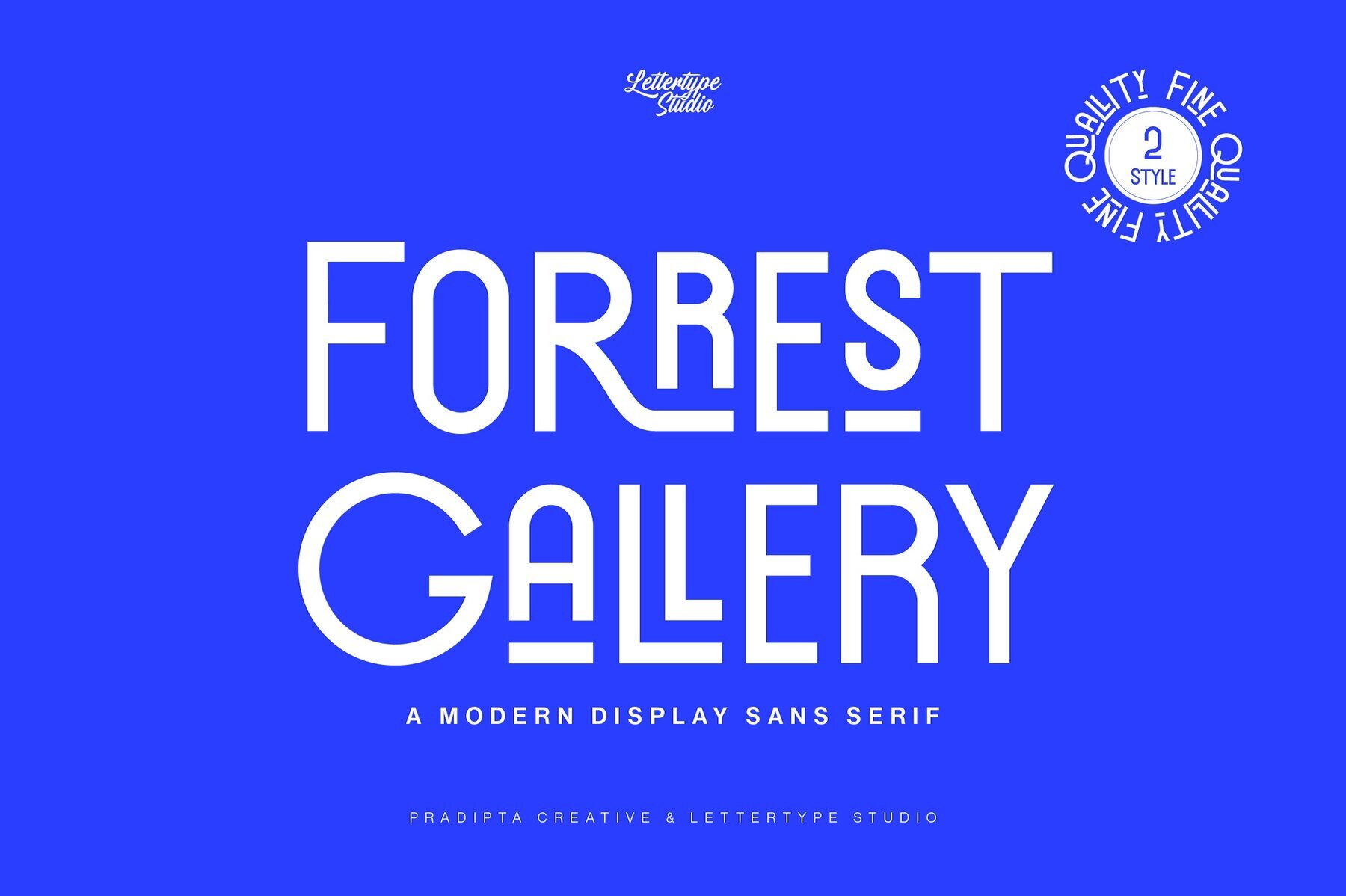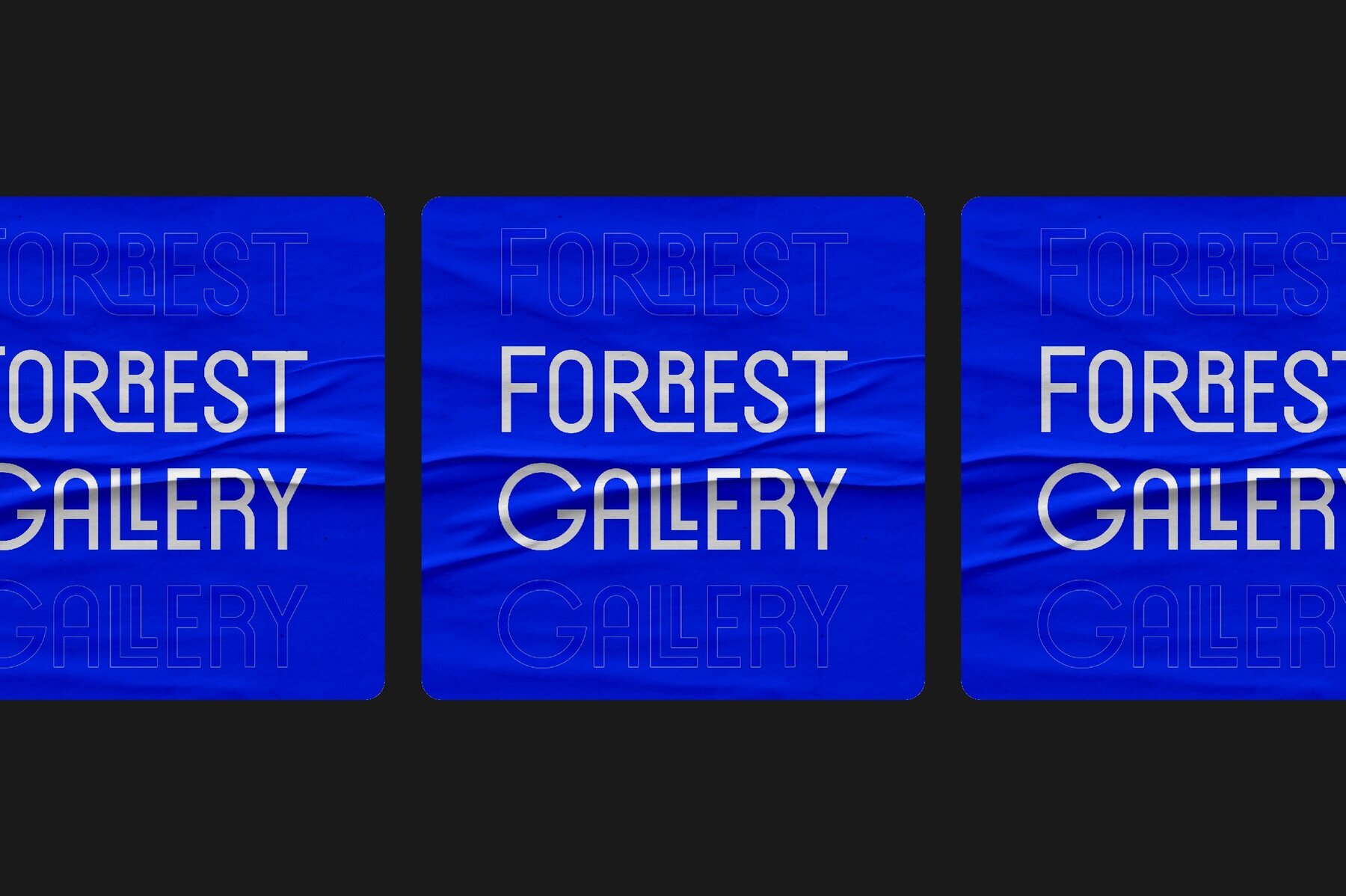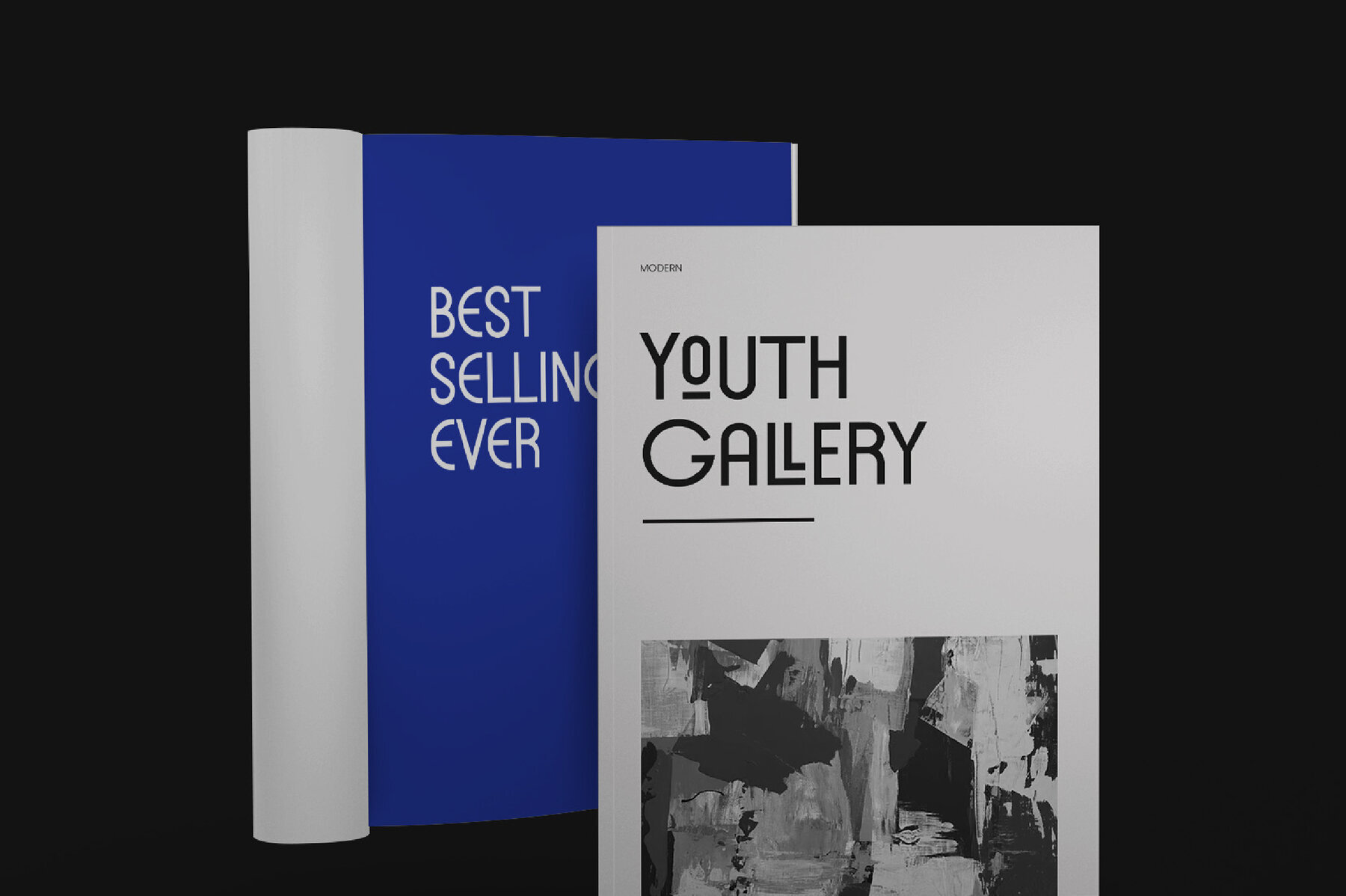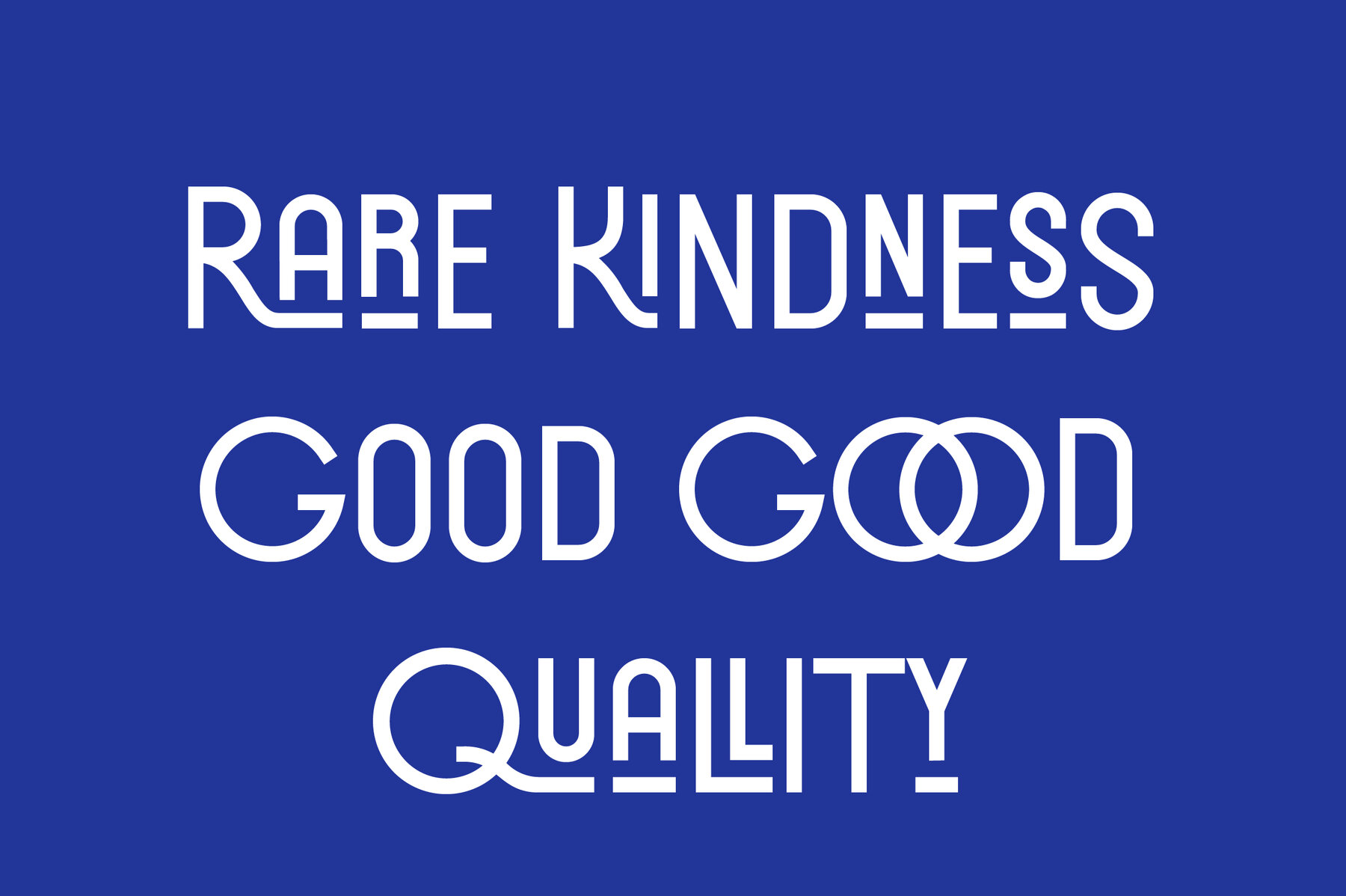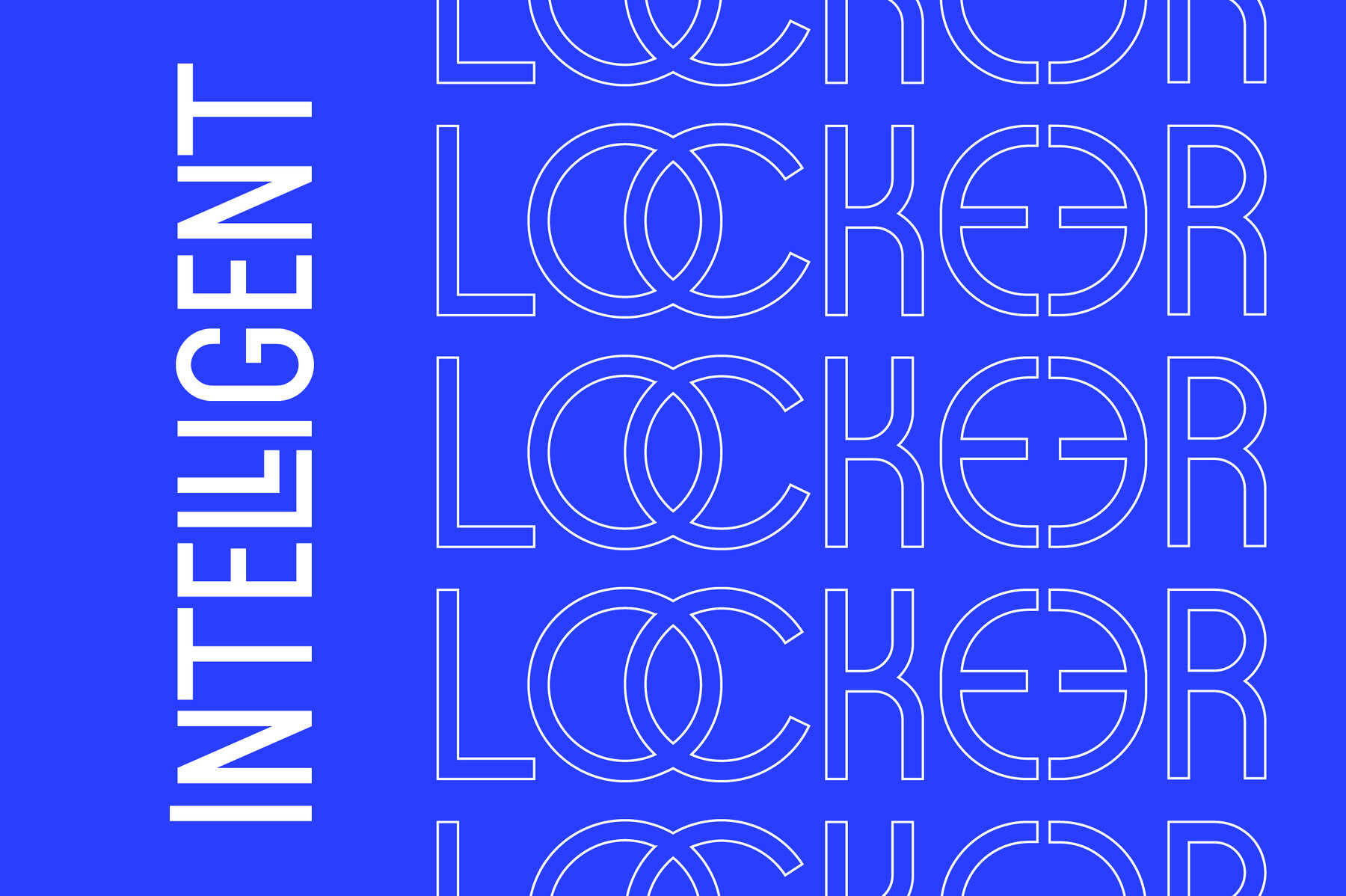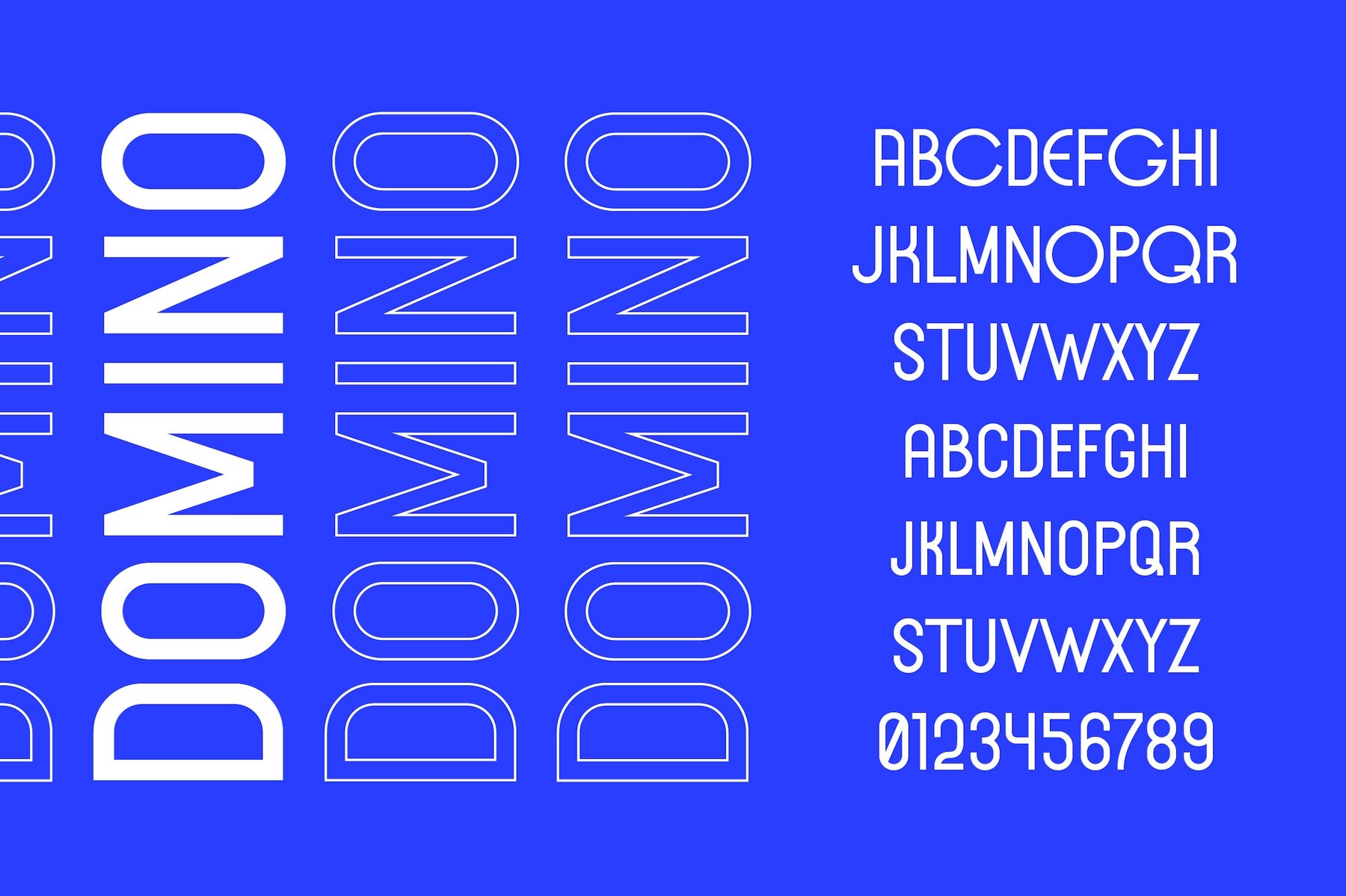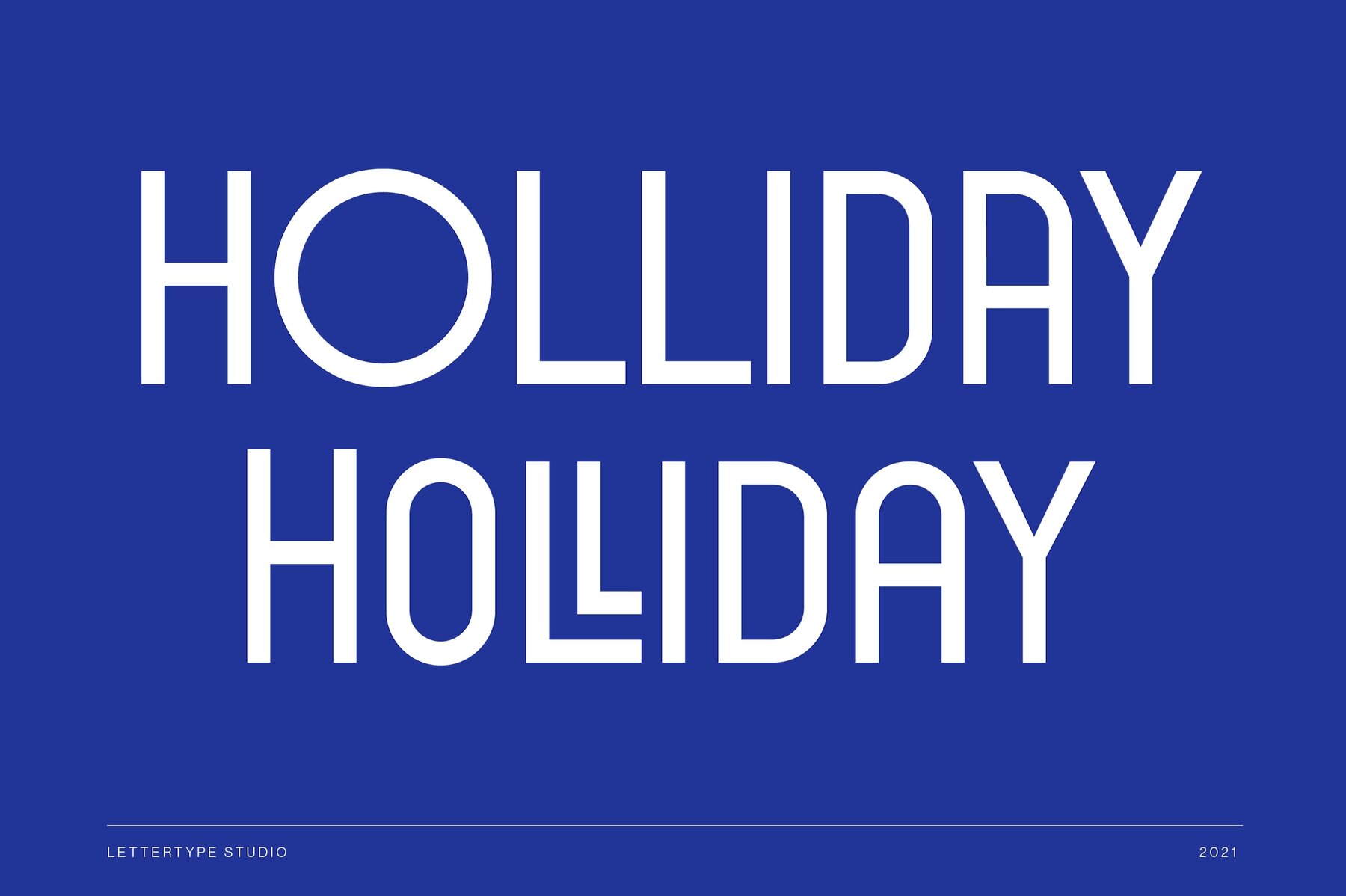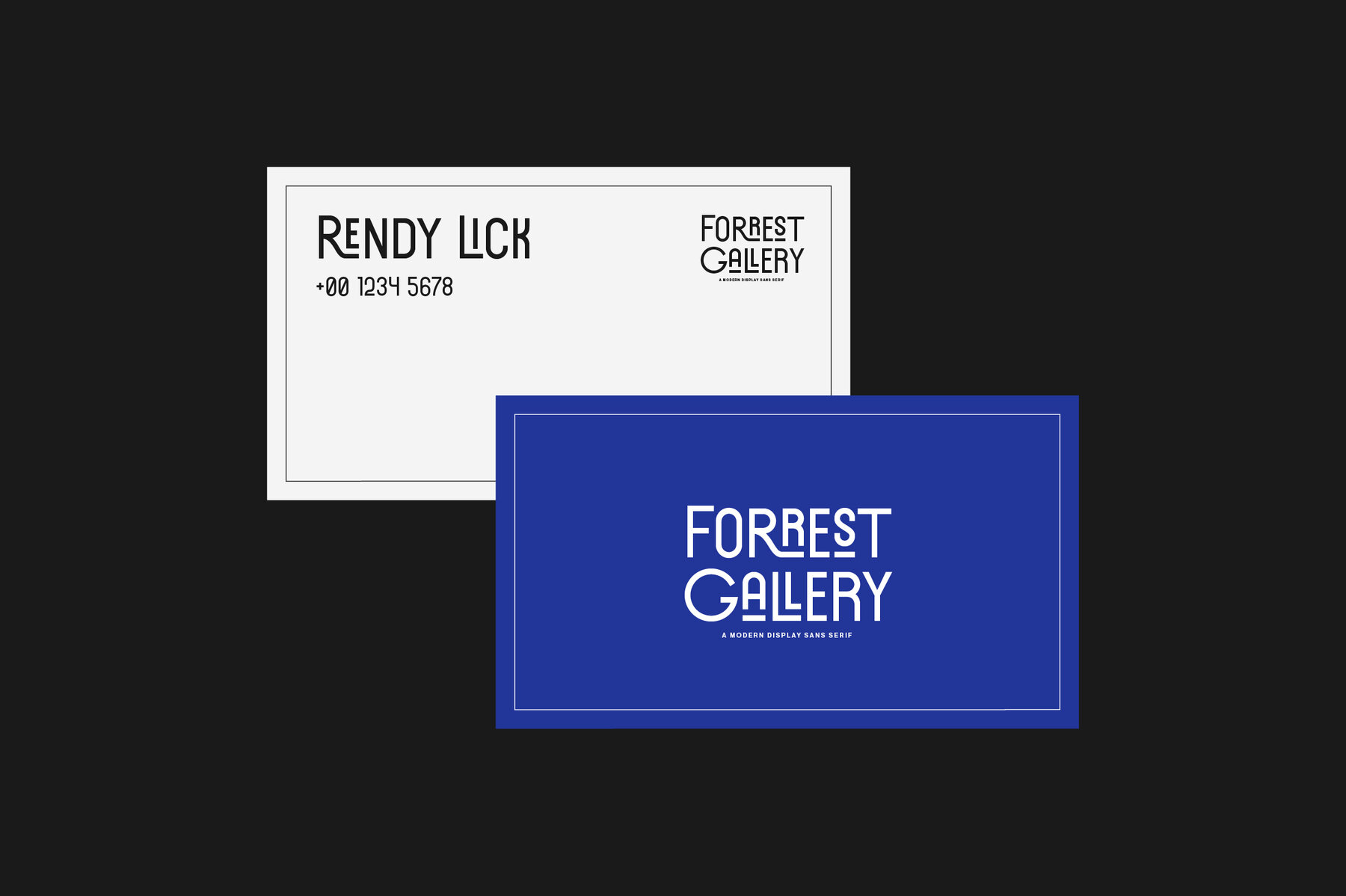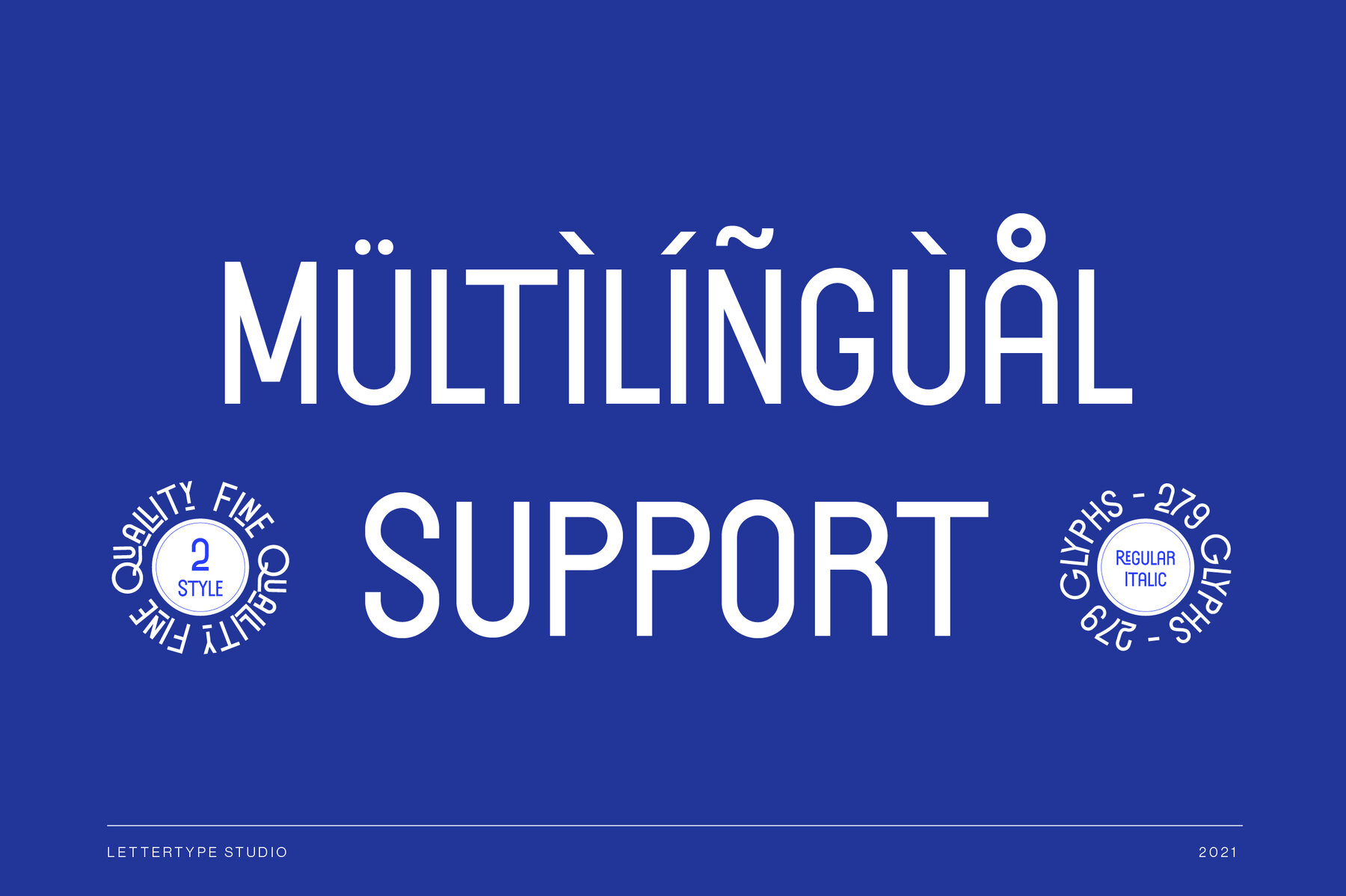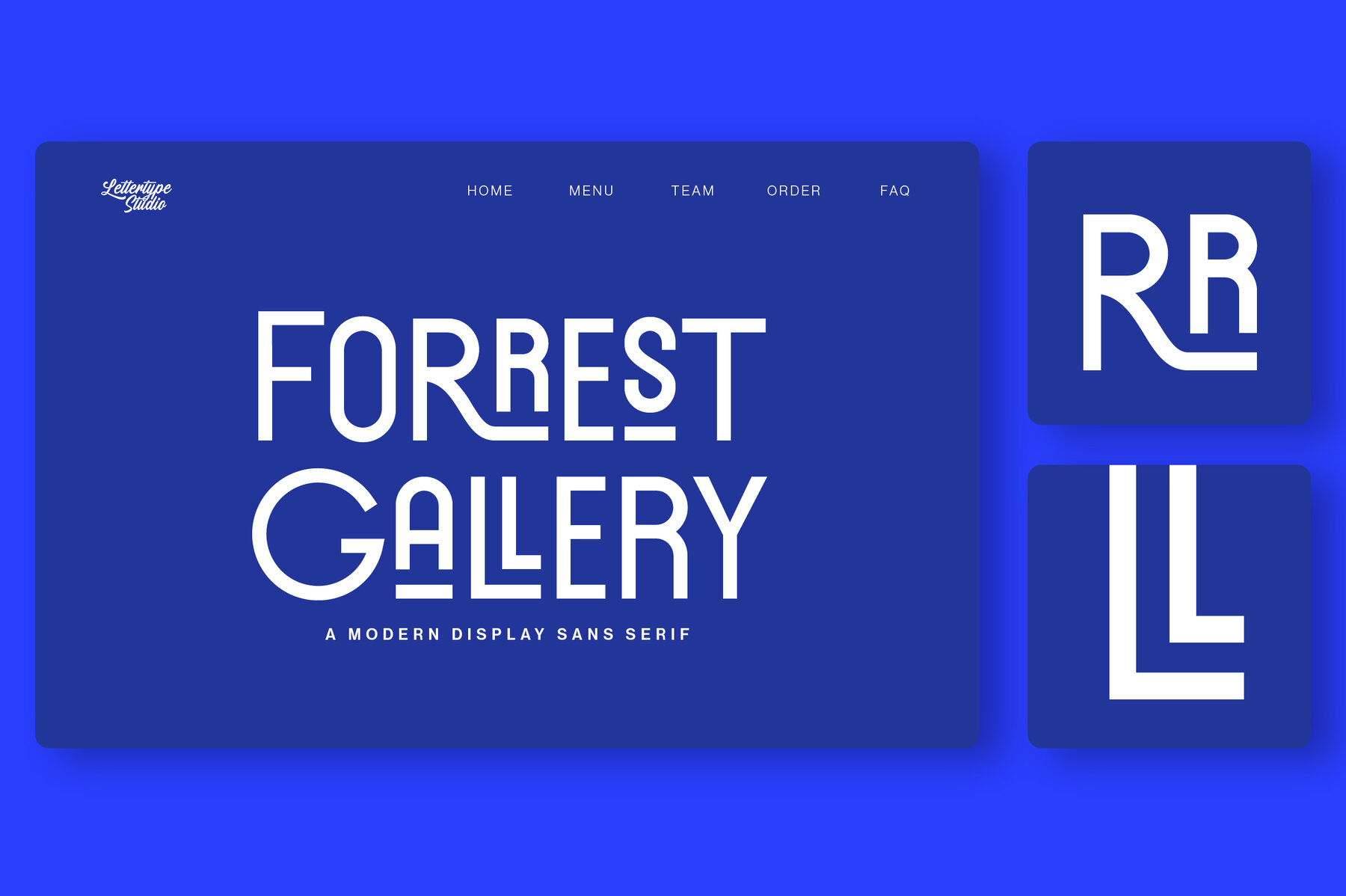
Forrest Gallery Font
Forrest Gallery Regular
Forrest Gallery Italic
Step into the modern design landscape with Forrest Gallery, a display sans serif font that combines elegance and versatility. Offering two styles—regular and italic—alongside a rich collection of 279 glyphs per style, Forrest Gallery is meticulously crafted to suit various design needs. Perfectly suited for a range of applications such as logo design, branding strategies, apparel, signage, and more, this font features a refined style that makes your branding efforts memorable and impactful.Forrest Gallery: A Contemporary Sans Serif for Distinctive Branding
Forrest Gallery Features